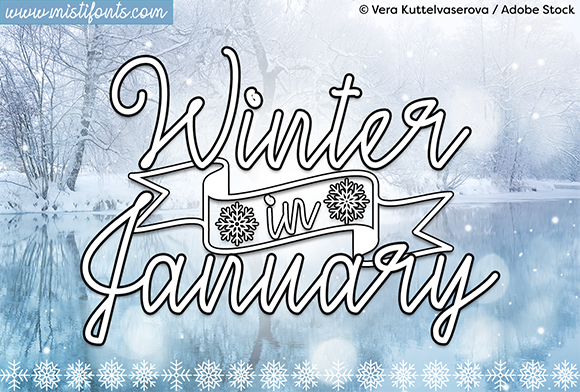
Prepare yourself to be captivated by the breathtaking beauty of Winter in January, a script font that will undoubtedly leave you spellbound. This exquisite creation by Misti stands as a testament to artistic brilliance, meticulously crafted to evoke the allure of a winter wonderland in January. Its enchanting curves and delicate strokes dance across the page like snowflakes gracefully twirling in a gentle breeze.
With Winter in January, your creative expressions will flourish, blossoming into masterpieces that radiate elegance and charm. Whether you're a seasoned designer or just starting your artistic journey, this script font will elevate your projects to new heights of sophistication. From heartfelt letters and whimsical invitations to captivating branding and social media posts, Winter in January will transform your words into visual poetry, capturing the attention of all who lay eyes upon them.
As you immerse yourself in the enchanting world of Winter in January, you'll discover a boundless realm of creative possibilities. Its versatility knows no bounds, adapting seamlessly to a myriad of design styles and themes. Embrace the timeless allure of classic calligraphy, or venture into the realm of modern elegance - Winter in January will effortlessly complement your vision, bringing a touch of magic to every project you undertake.
Indulge in the delight of creating personalized greeting cards that exude warmth and charm. Design enchanting wedding invitations that capture the essence of romance and eternal love. Elevate your social media presence with captivating posts that sparkle with creativity and flair. With Winter in January, the possibilities are endless, limited only by the boundaries of your imagination.
Don't miss this extraordinary opportunity to possess a font that embodies the very essence of winter's enchantment. Embrace the beauty of Winter in January and embark on a creative journey that will leave you breathless. Let your imagination soar as you discover the boundless possibilities that await you with this remarkable script font.